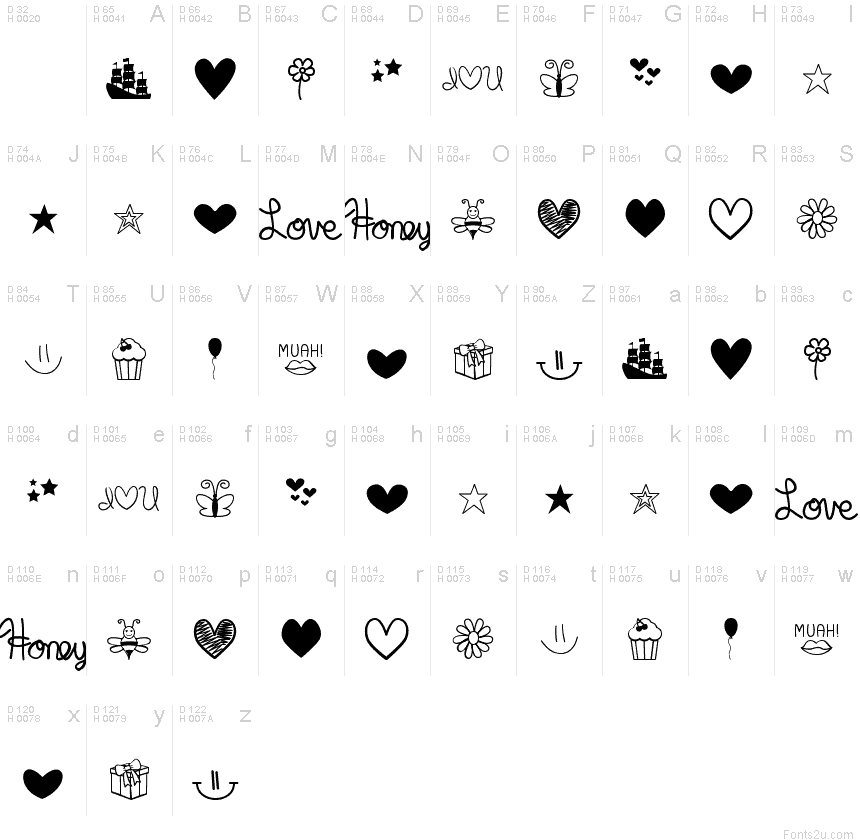
MF Dings, created by Misti Hammers of Misti's Fonts, is a free pictorial dingbat font filled with cheerful symbols and decorative word art. Rounded hearts, butterflies, a bee, flowers, sweets, and other friendly motifs share smooth outlines and a simple hand-drawn finish.
A bakery, gift shop, or handmade stationery brand could use the collection for packaging, greeting cards, and party invitations with a warm, playful theme. The recurring hearts and small celebratory pictures link those uses through affection, treats, and everyday occasions.
This ding set includes all the special characters from the following previous fonts: Ships In The Night, Fight For My Love, My Font Addiction, Honeybee, and Happy Birthday, Baby.